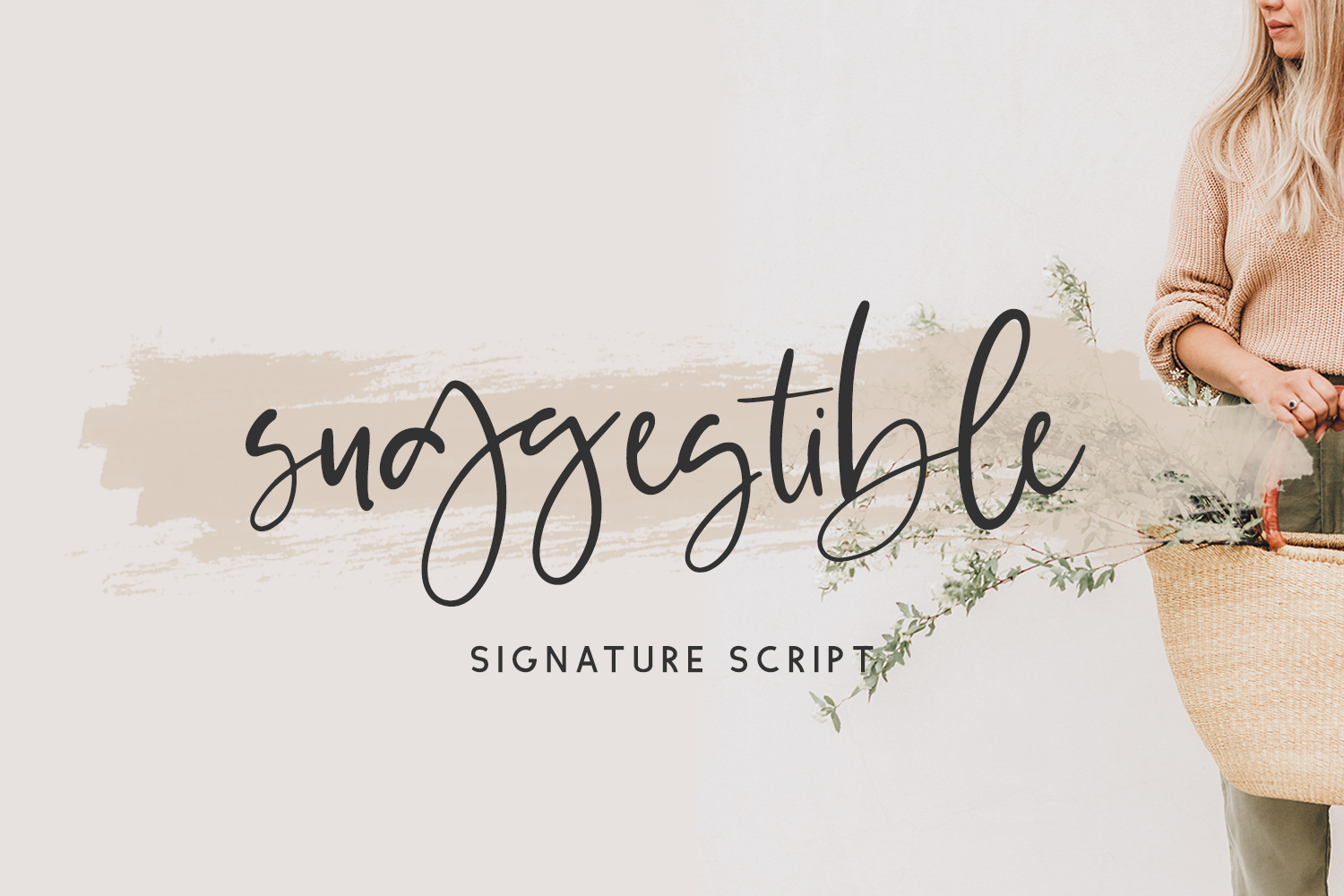
Introducing Suggestible Script, a signature font packed with alternates & ligatures to enhance the handwritten look when you use this font in your next project.
Suggestible Script is best for:
- website design + website accents - think travel blogs, fashion blogs, & more
Suggestible includes:
- 26 alternate characters
- 14 ligatures - bb, cc, dd, ee, ff, gg, ll, mm, nn, oo, pp, rr, ss, tt